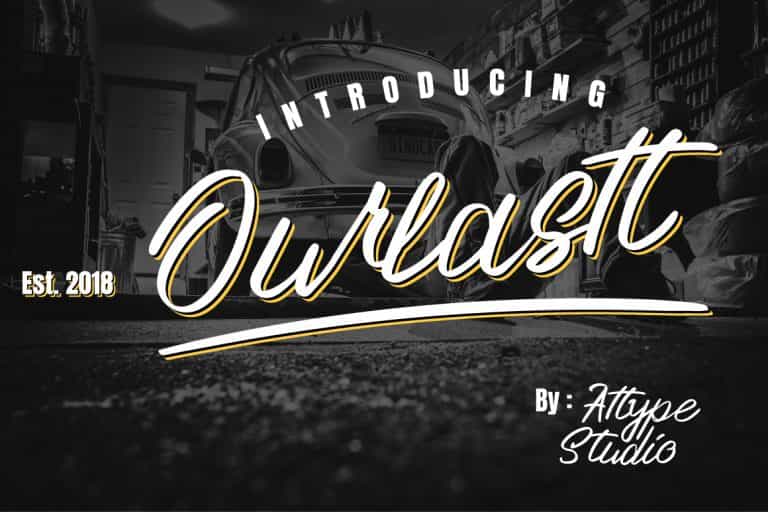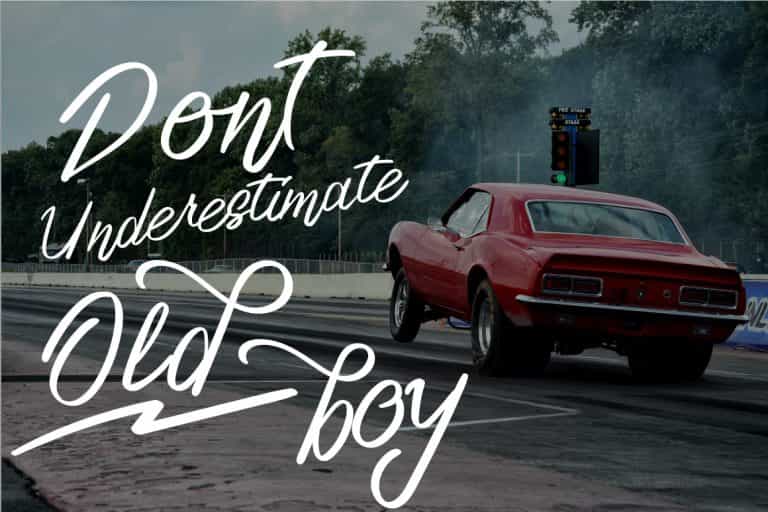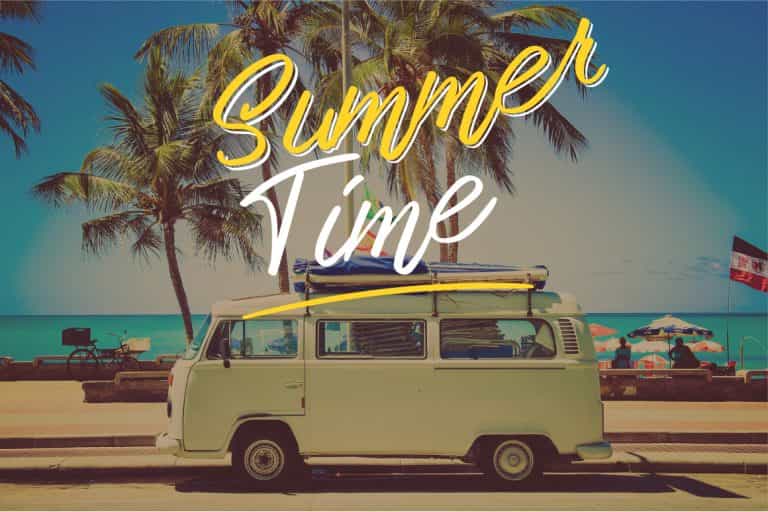
Discover Ourlastt Script Font, part of the Brush Calligraphy collection—a versatile and unique font perfect for adding a personal touch to your projects. Download it for free and enjoy crafting designs with style, from invitations to social media posts. This font is available exclusively for personal use, giving you the freedom to create without limits. Unlock your creativity with Ourlastt Script Font today!
Introducing Ourlastt Font. Ourlastt is true font is a modern handlettering script with a dramatic movement. It is allowing you to create beautiful handmade typography, just like online. Ourlastt is perfect for branding, logo, wedding designs, social media posts, advertisements, product packaging, product designs, photography, invitation, stationery, and any projects that need handwriting taste.